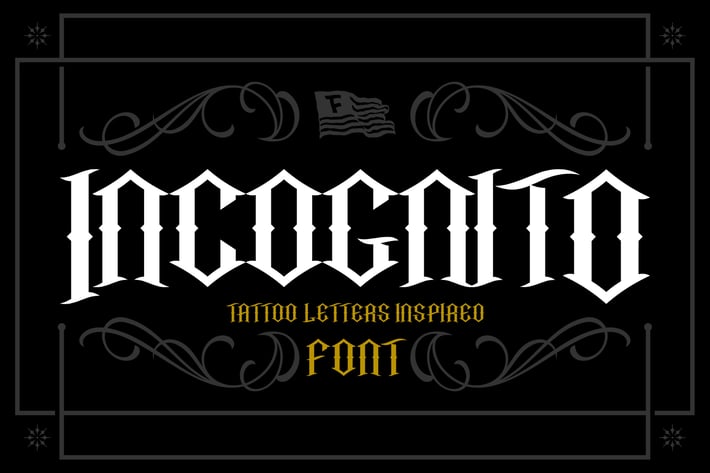
Incognito Tattoo Font
Introducing Incognito, classic blackletter font that are havily inspired by tattoo and kustom kulture. Suits best if you're working on gothic, tribal, tattoo themed designs. Comes in two regular formats (OTF and TTF).